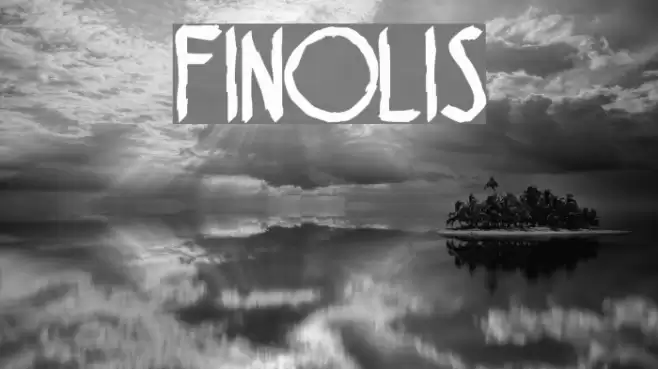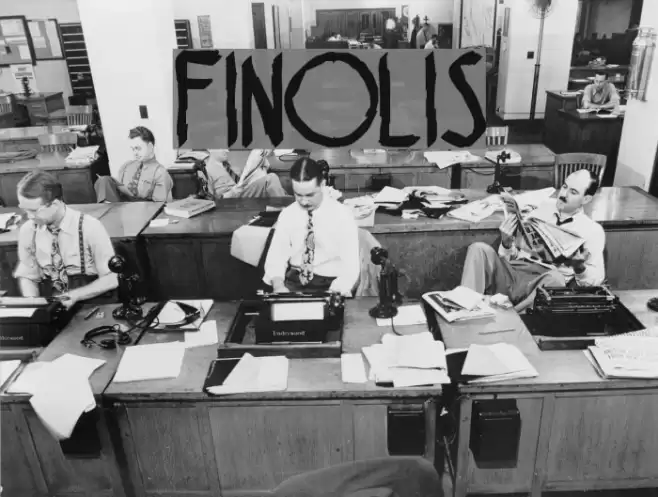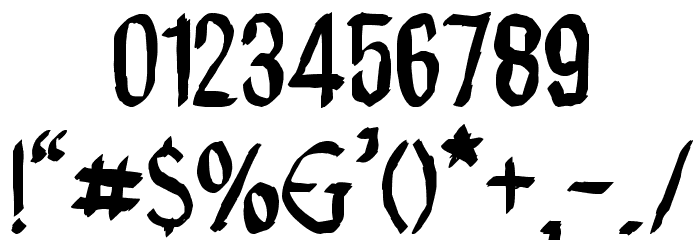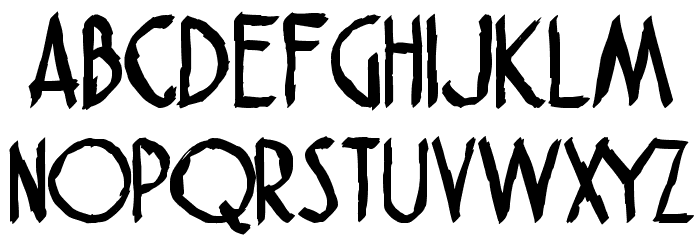
FINOLIS Font
FINOLIS Description
This font features a bold and dynamic design with a hand-drawn aesthetic. The characters have irregular, jagged edges that give them a raw and energetic feel. The uppercase and lowercase letters maintain a consistent style, with a slightly condensed form that enhances their striking appearance. Numbers and special characters are designed to match the overall theme, providing a cohesive look across all glyphs. The font's unique style makes it ideal for projects that require a bold statement or an artistic touch.
A bold, hand-drawn font with jagged edges and a dynamic style from Uncategorized fonts.
- Proposed Projects: Ideal for posters, album covers, branding projects, and any design that requires a bold, artistic statement.